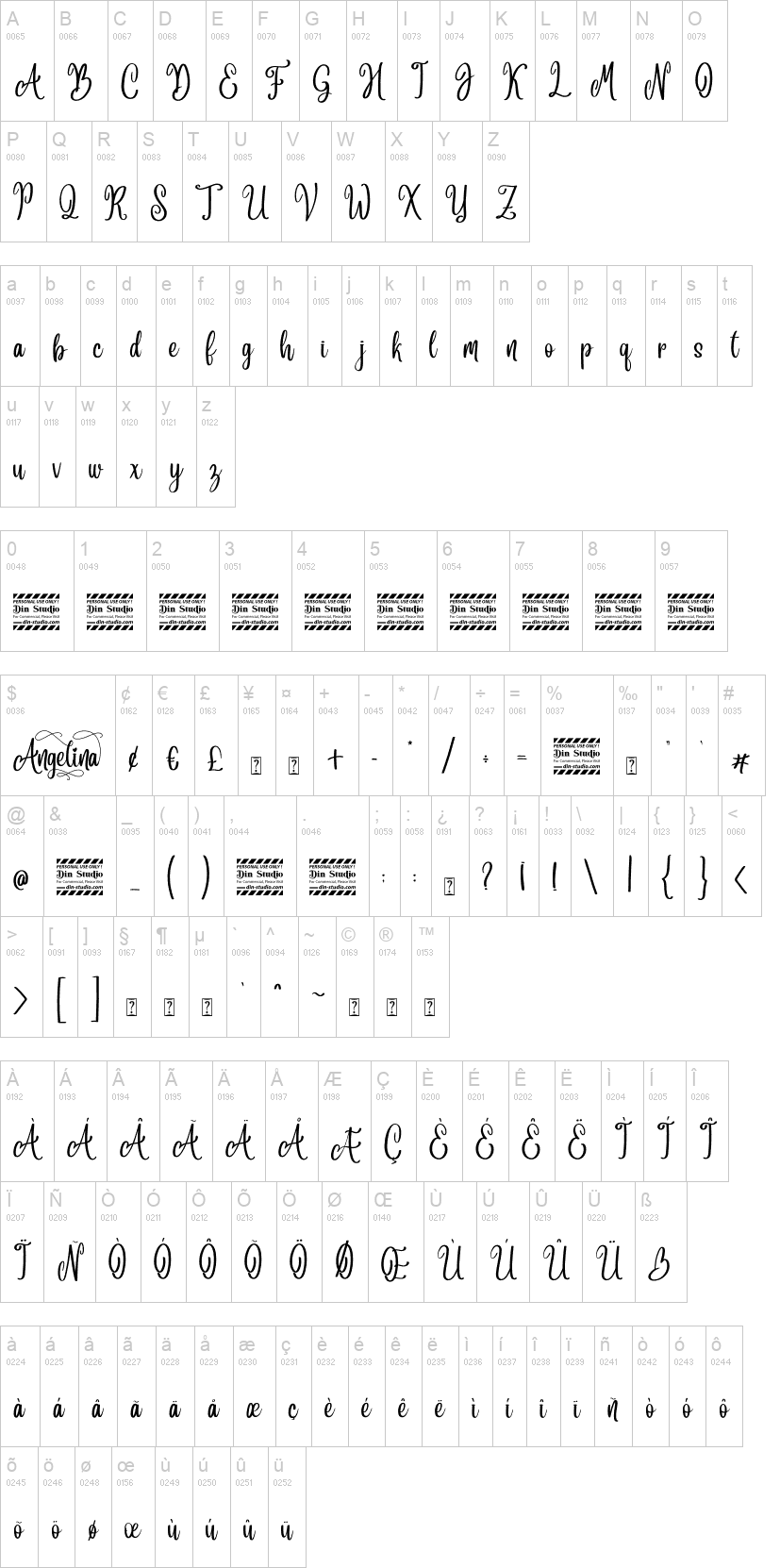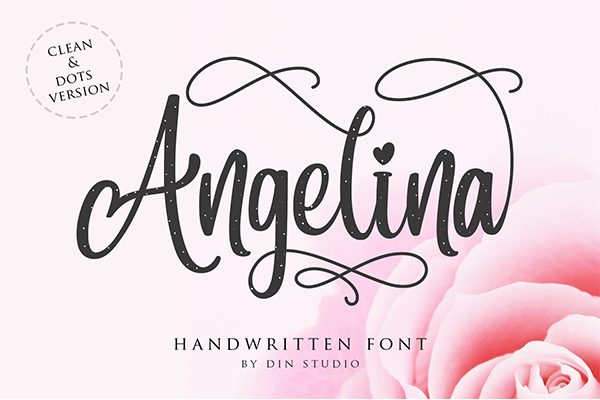
Introducing Angelina Script.a beautiful handwritten font with a natural and modern style for your project design. This font is best used for weddings, branding, logotype, and quotes.